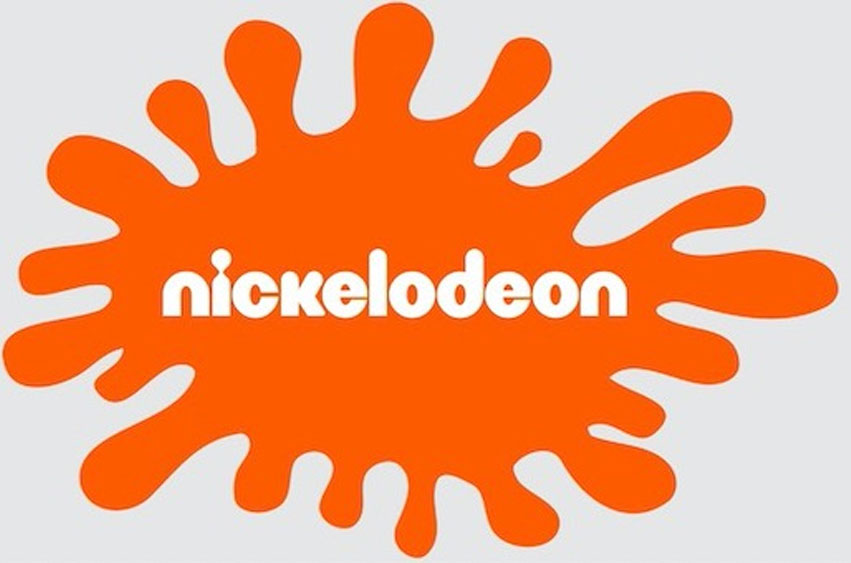
Nickelodeon Font
Nickelodeon Font is a specific font style that was used in the branding and marketing materials of Nickelodeon TV network.
I’s a great popular font, meaning it was created specifically for the network and it is characterized by its bold and colorful lettering, which is often associated with the youth-oriented programming.